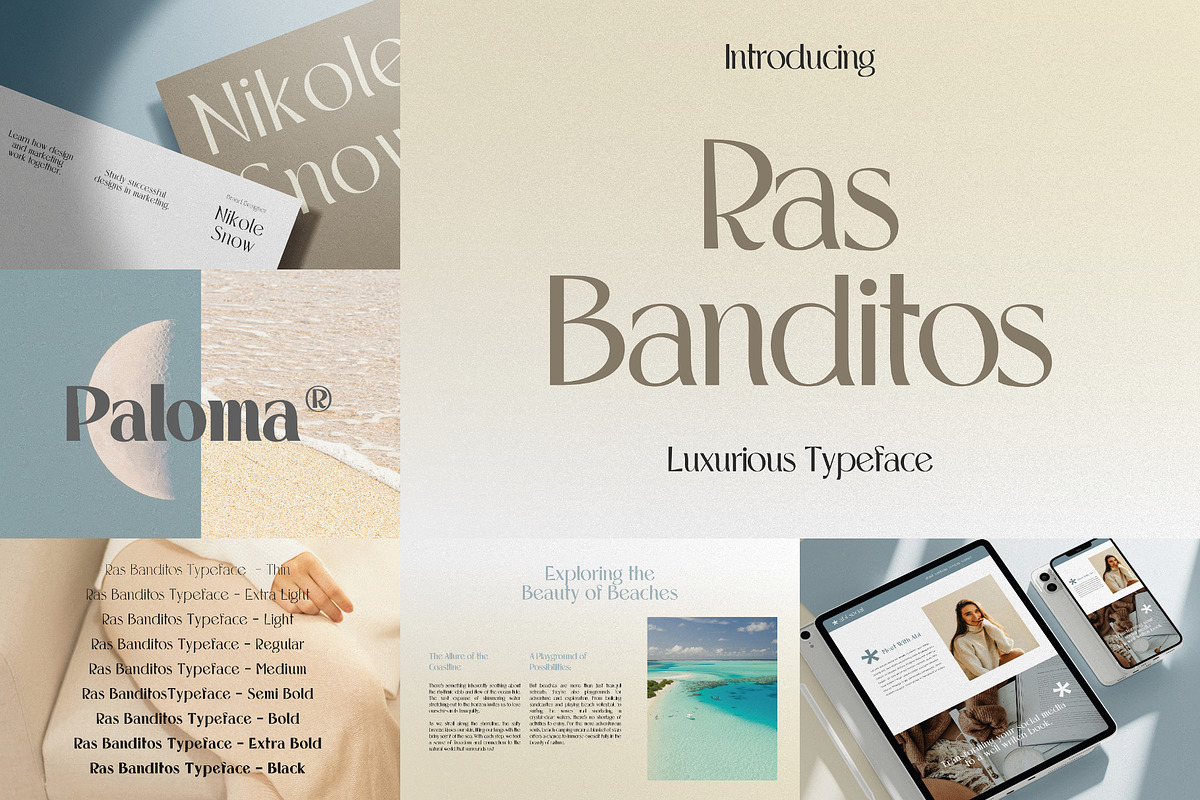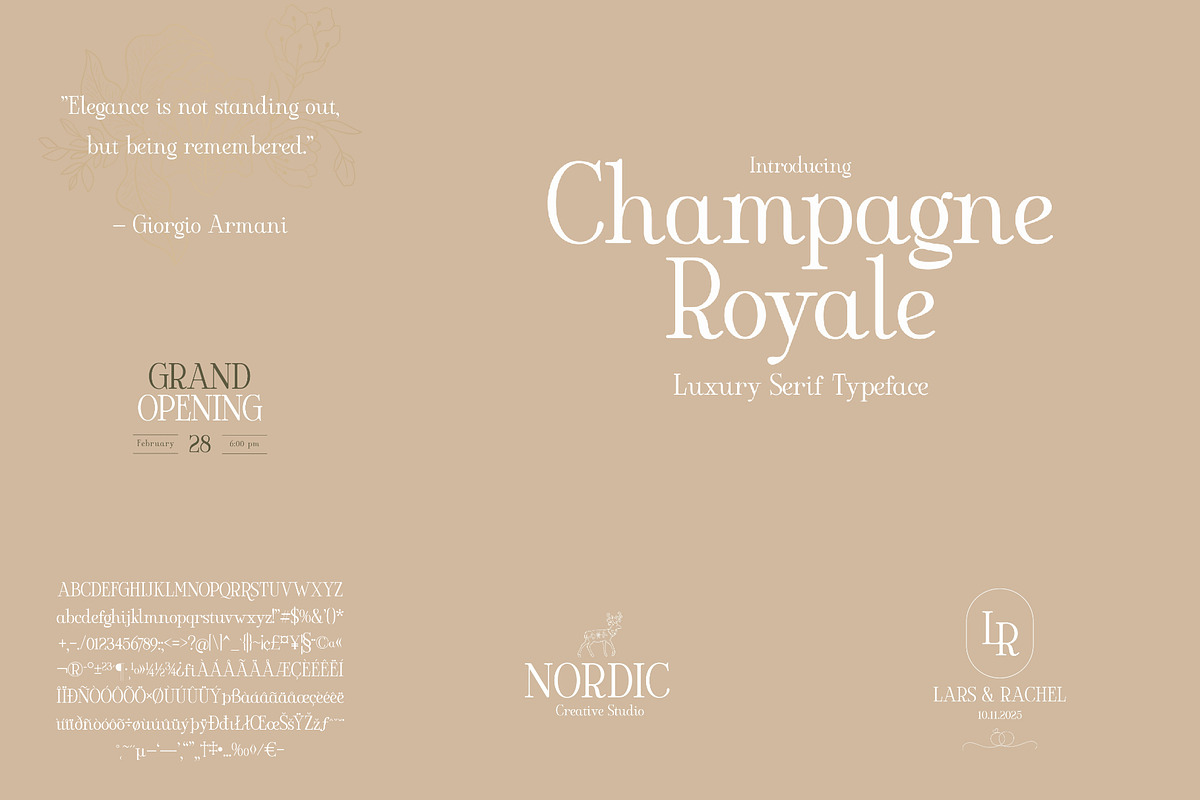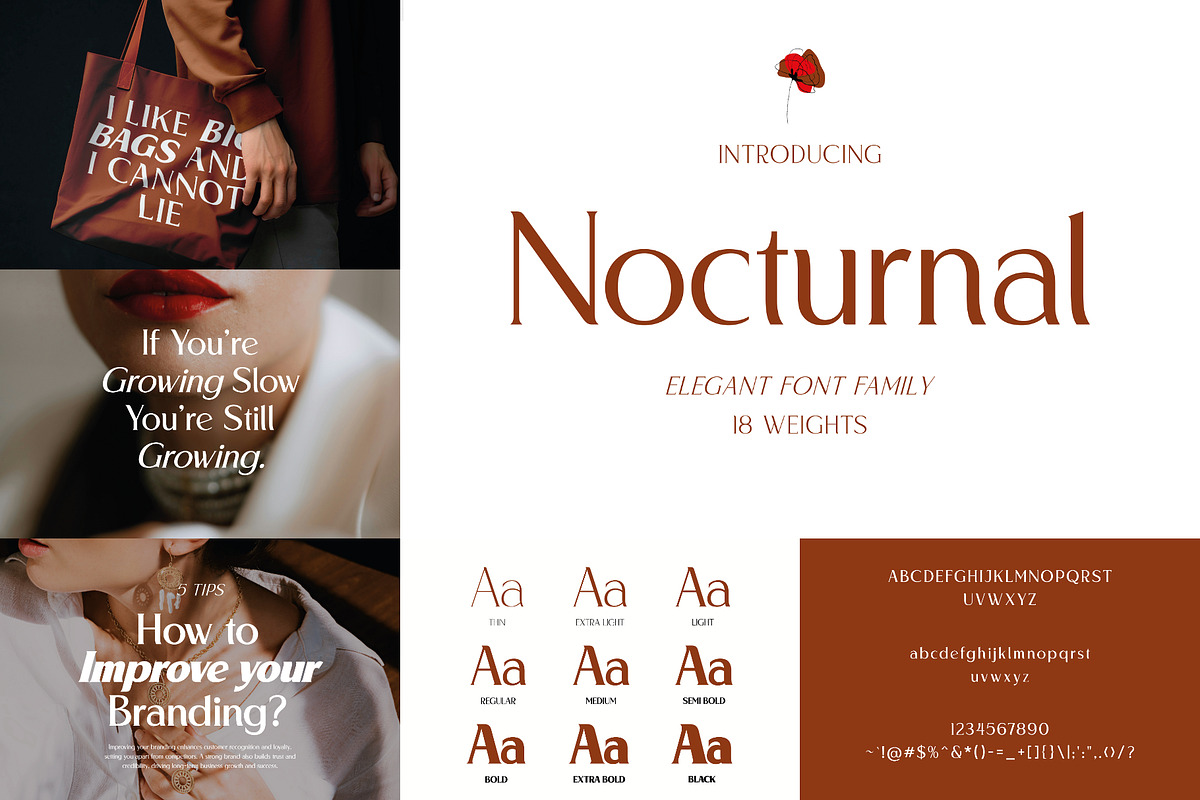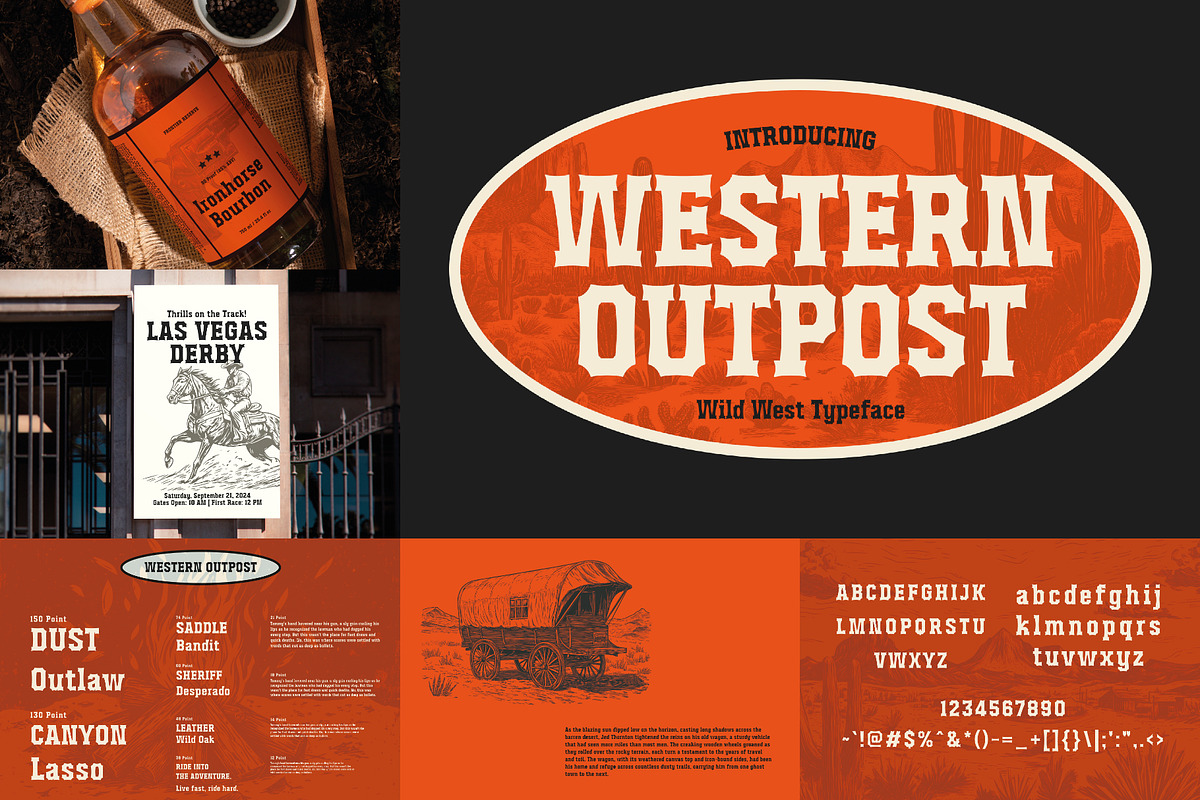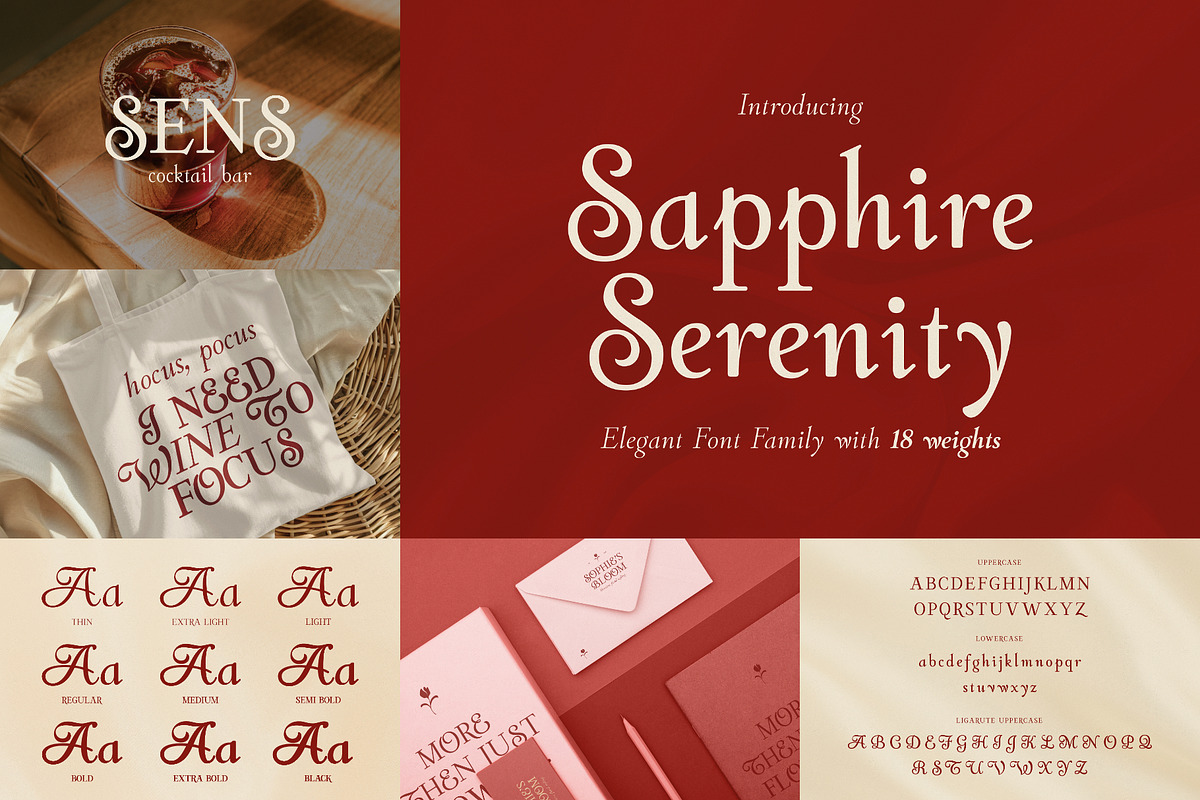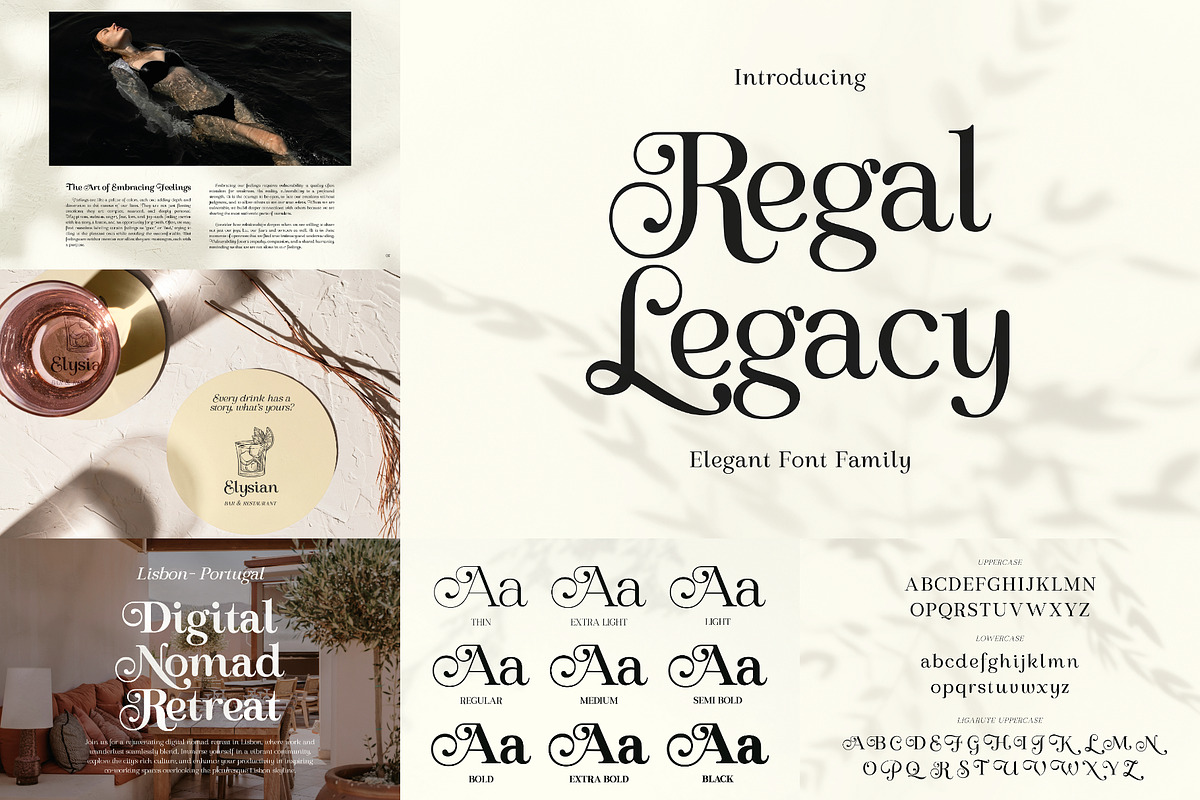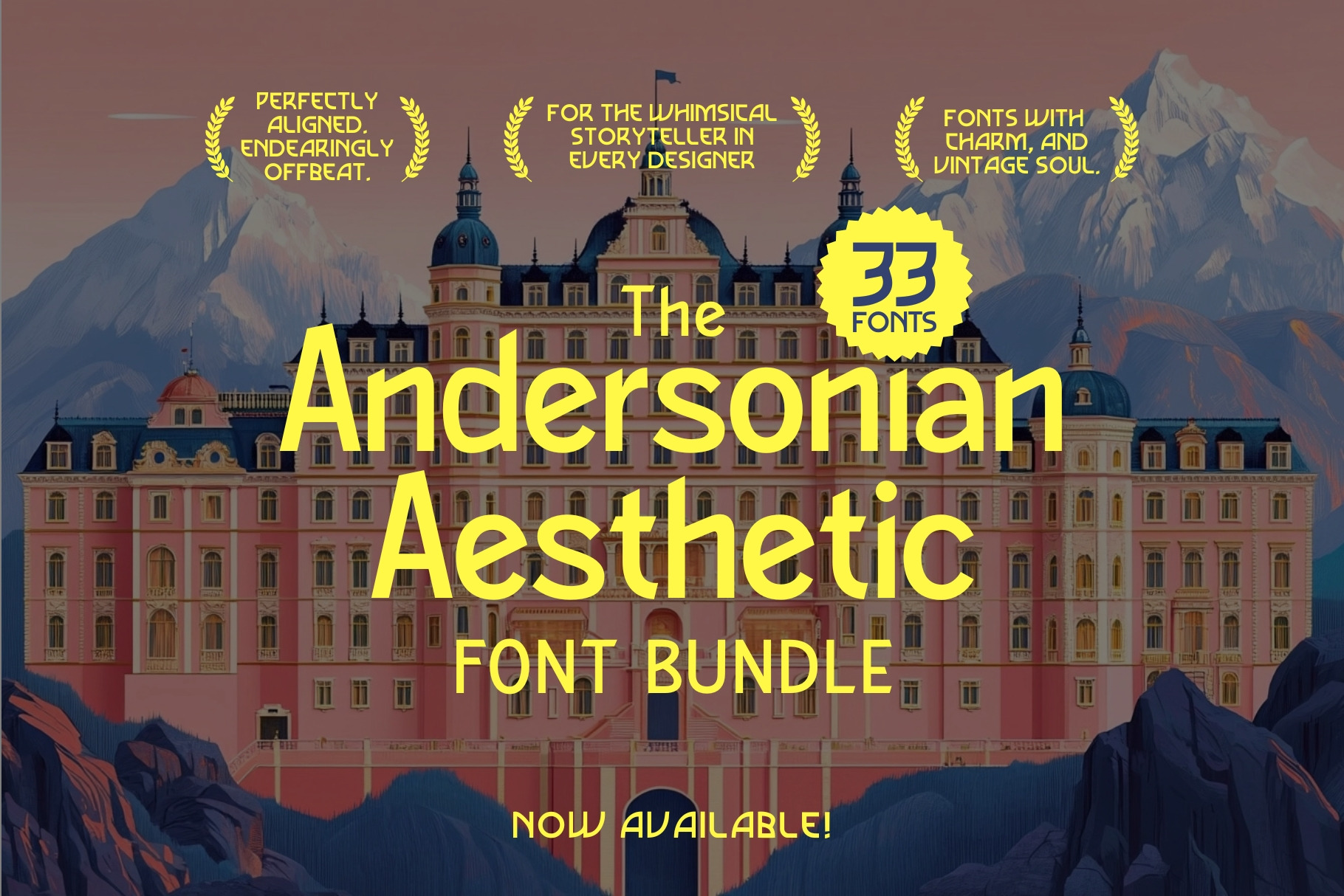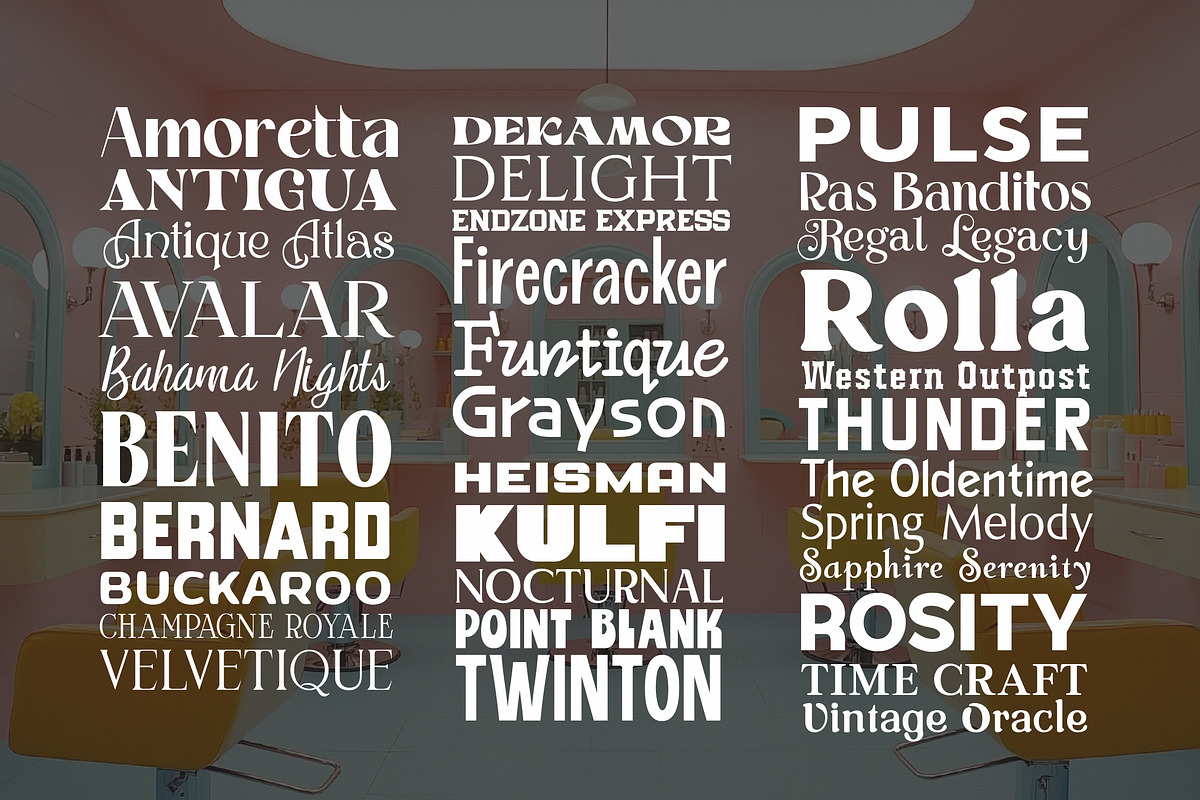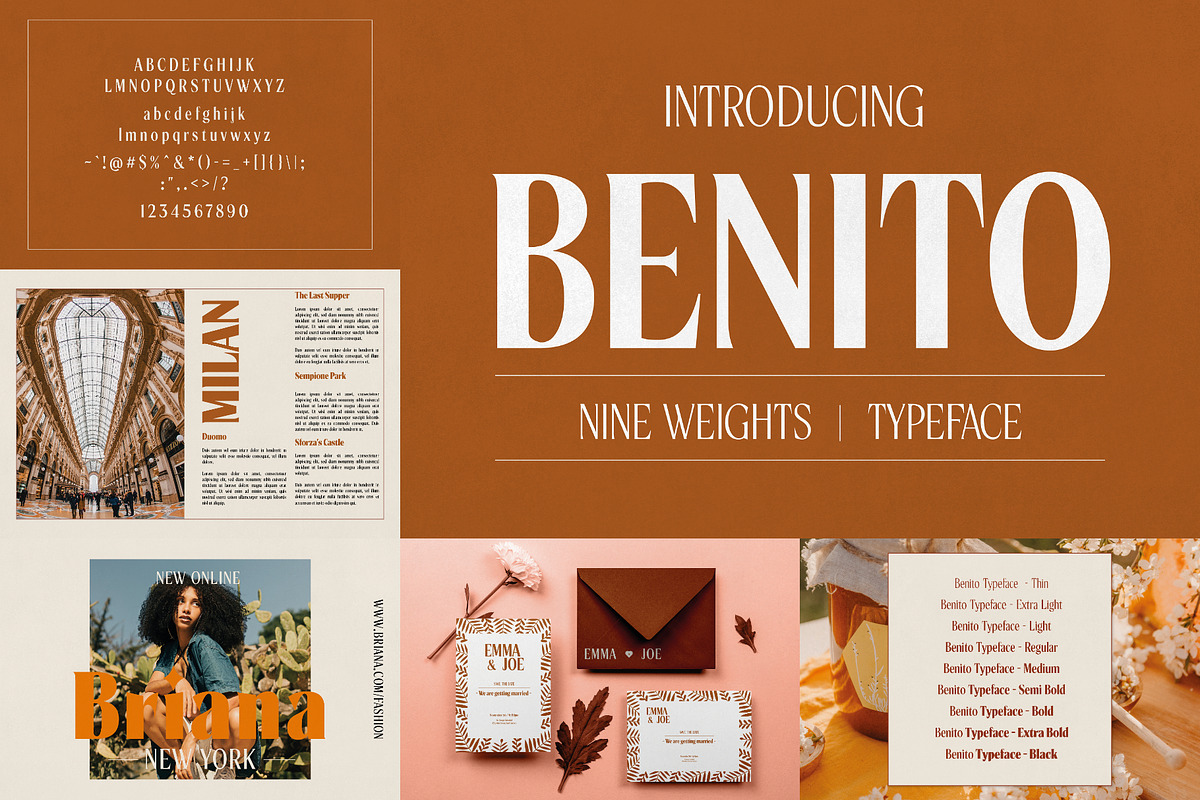
Andersonian Aesthetic Font Bundle
Step into a world of symmetrical elegance, pastel dreams, and storybook nostalgia with The Andersonian Aesthetic Font Bundle — a lovingly curated collection of 33 fonts inspired by the iconic style of Wes Anderson's film posters.
Perfectly aligned. Endearingly offbeat. These typefaces capture the essence of whimsical storytelling, vintage design, and artistic precision — all wrapped in a palette of charm and character.
Whether you're designing movie titles, book covers, packaging, branding, or invitations, these fonts evoke the quirky sophistication and emotional depth that Anderson fans adore.
With retro serifs, clean sans-serifs, and hand-drawn curiosities, this bundle is a tribute to the art of visual storytelling.
- 33 distinctive fonts, each with its own personality
- A mix of vintage-inspired serifs, whimsical scripts, and symmetrical sans-serifs
- Perfect for posters, flyers, headlines, branding, and editorial projects
For the whimsical storyteller in every designer. Bring cinematic charm to your next project with fonts that don't just speak, but tell a story.